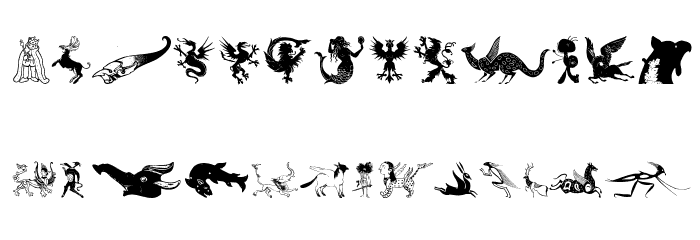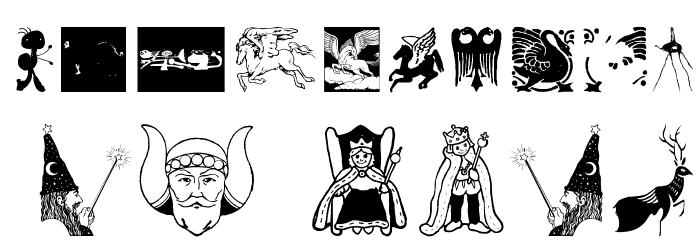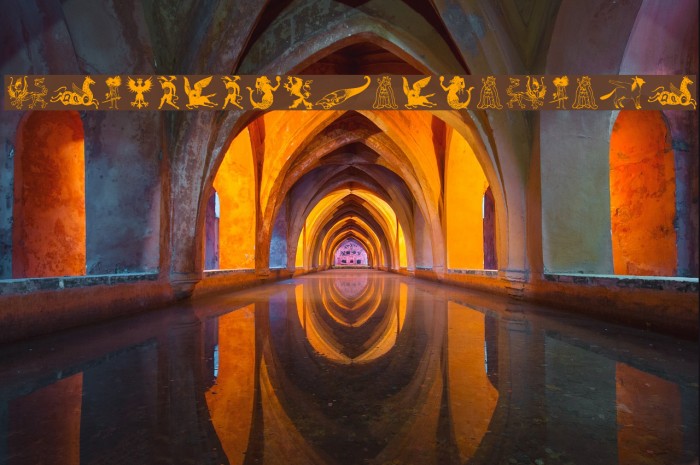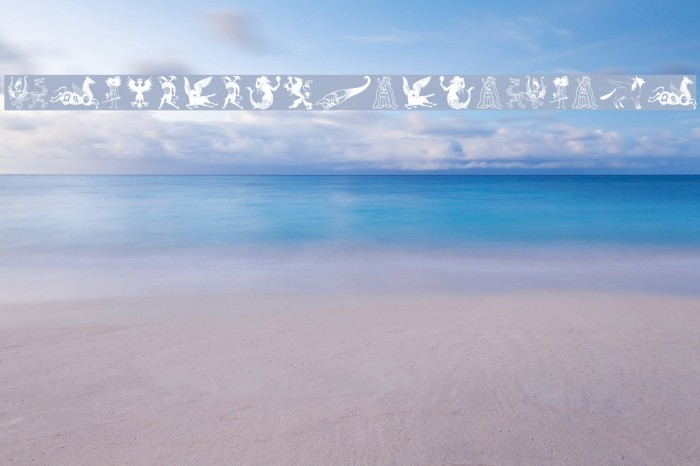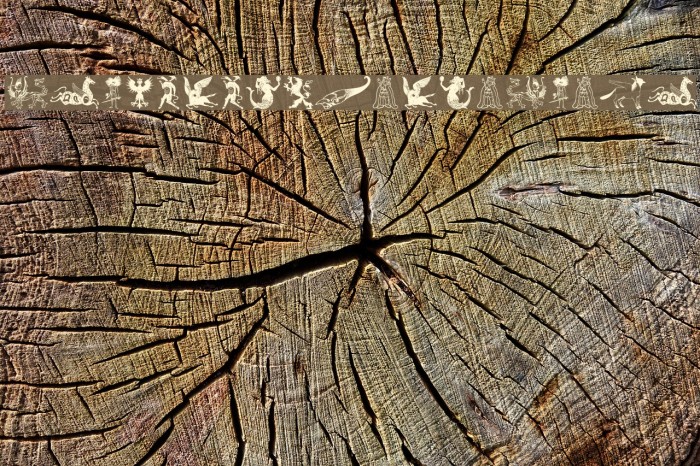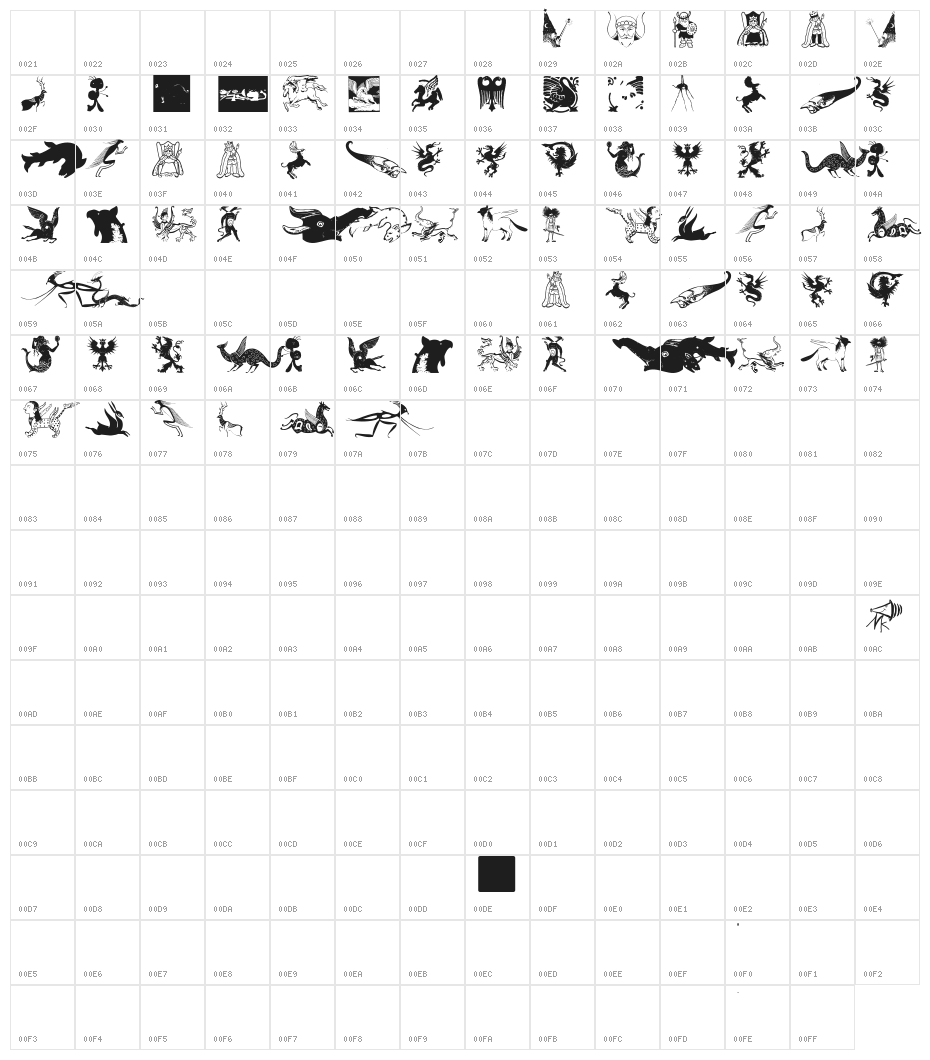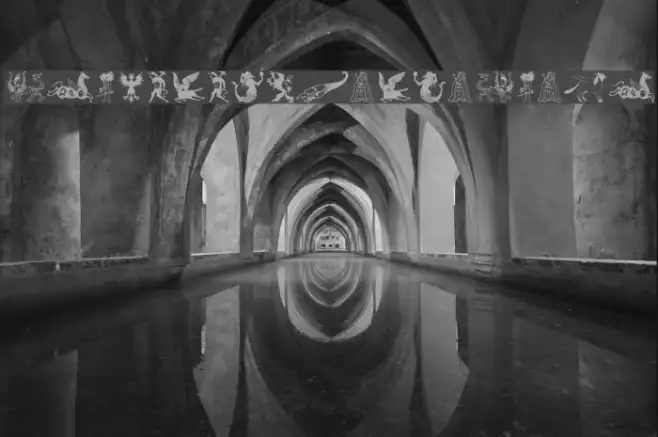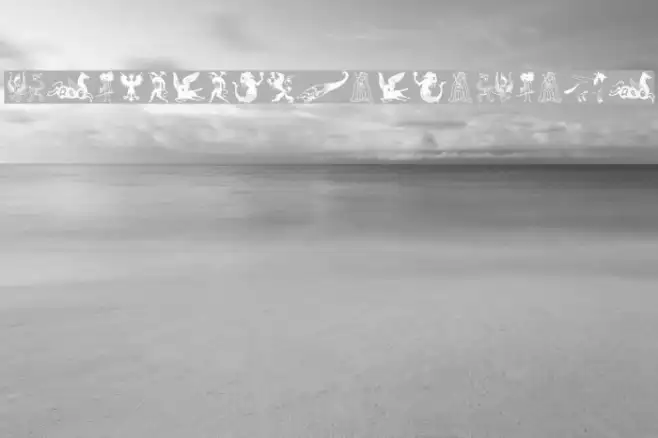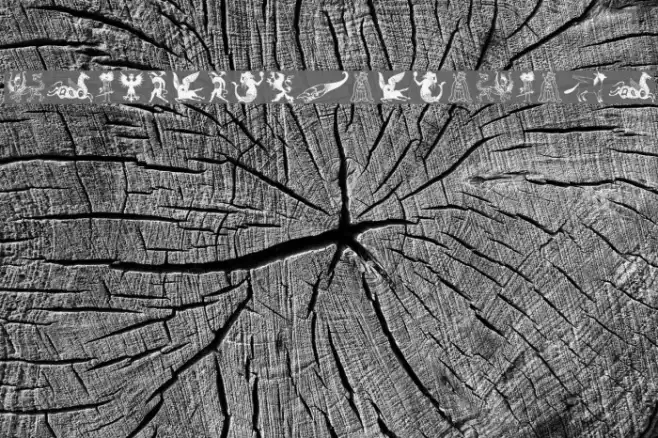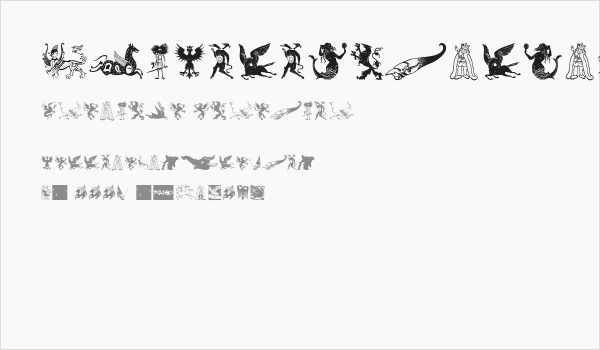
MythologicalFantasy Font
This is a decorative font featuring a collection of mythological and fantasy-themed illustrations. Each character is represented by a unique mythical creature or figure, such as dragons, mermaids, and wizards. The style is highly detailed and artistic, with each glyph resembling a small piece of artwork. The font is designed to evoke a sense of wonder and fantasy, making it ideal for creative and imaginative projects. The characters are intricately designed, with a focus on mythical and legendary themes, providing a whimsical and enchanting visual experience.
A decorative font featuring detailed mythological and fantasy-themed illustrations.
- Proposed Projects: Ideal for fantasy book covers, game design, themed event invitations, and creative storytelling projects.
- Use Case: Logos, Headlines, Artistic projects